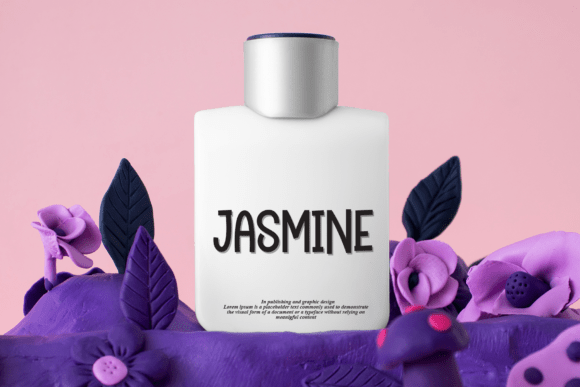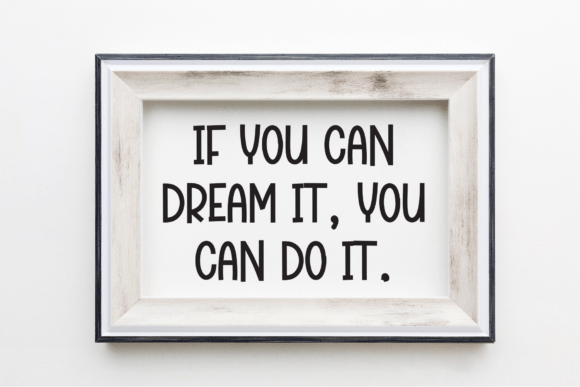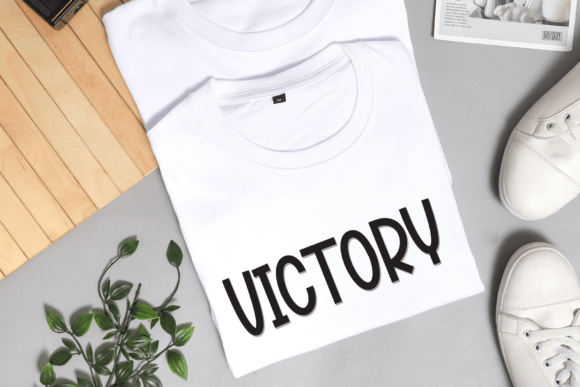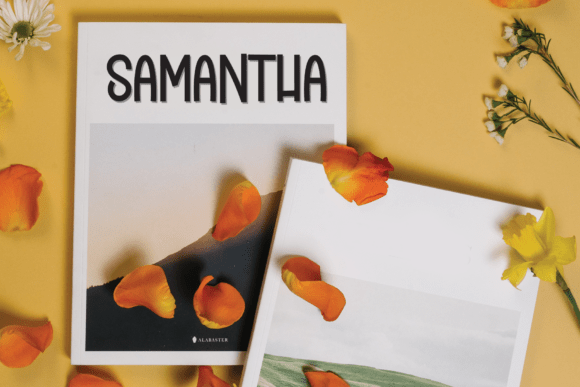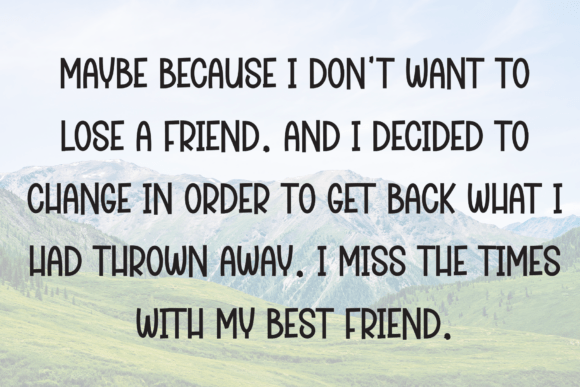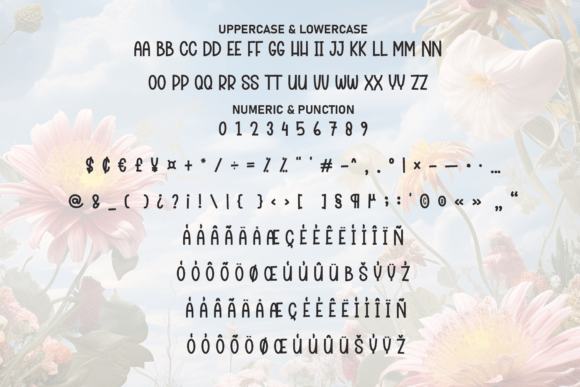
Introducing Flower Summer Font: The Perfect Blend of Whimsy and Charm
I’ll never forget the time I was working on a wedding invitation project, and my client asked for a font that was “warm, friendly, and playful.” I scoured the internet, tried countless fonts, but nothing seemed to fit the bill. That was until I stumbled upon Flower Summer Font. With its delightful nuances and lovable quirks, this charming handwritten display font radiates warmth and friendliness, making it perfect for crafting unique wedding invitations, captivating cards, or any design ventures needing a sprinkle of joyful charisma.
As a designer, I’m always on the lookout for fonts that can add a personal touch to my projects. Here’s what I love about Flower Summer Font:
- ✨ Unique and playful character set that’s perfect for making a statement
- ✅ Beautifully crafted letters with a warm, handwritten feel
- 💕 Extensive range of glyphs and stylistic alternates to customize your text
- 🎉 Perfect for a variety of design projects, from wedding invitations to social media graphics
While Flower Summer Font is a stunning addition to any design project, there are a few quirks to keep in mind:
- 🤔 Some characters may require manual kerning for optimal spacing
- ⚠️ Not suitable for body text due to its decorative nature
The Story Behind Flower Summer Font
Flower Summer Font was designed by a talented type designer who’s passionate about creating unique, handcrafted fonts that bring joy and personality to design projects. Inspired by the beauty of nature and the warmth of summer, this font is perfect for designers and crafters looking to add a touch of whimsy to their work.
| What type of projects is Flower Summer Font suitable for? | Flower Summer Font is perfect for creative projects that require a touch of whimsy and personality, such as wedding invitations, social media graphics, and cards. |
| Does Flower Summer Font come with any additional features? | Yes, Flower Summer Font comes with a range of OpenType features, including glyphs and stylistic alternates, to help you customize your text and add visual interest to your designs. |
| Is Flower Summer Font easy to read? | While Flower Summer Font is a decorative font, it’s still relatively easy to read, making it perfect for headlines, titles, and short paragraphs of text. |